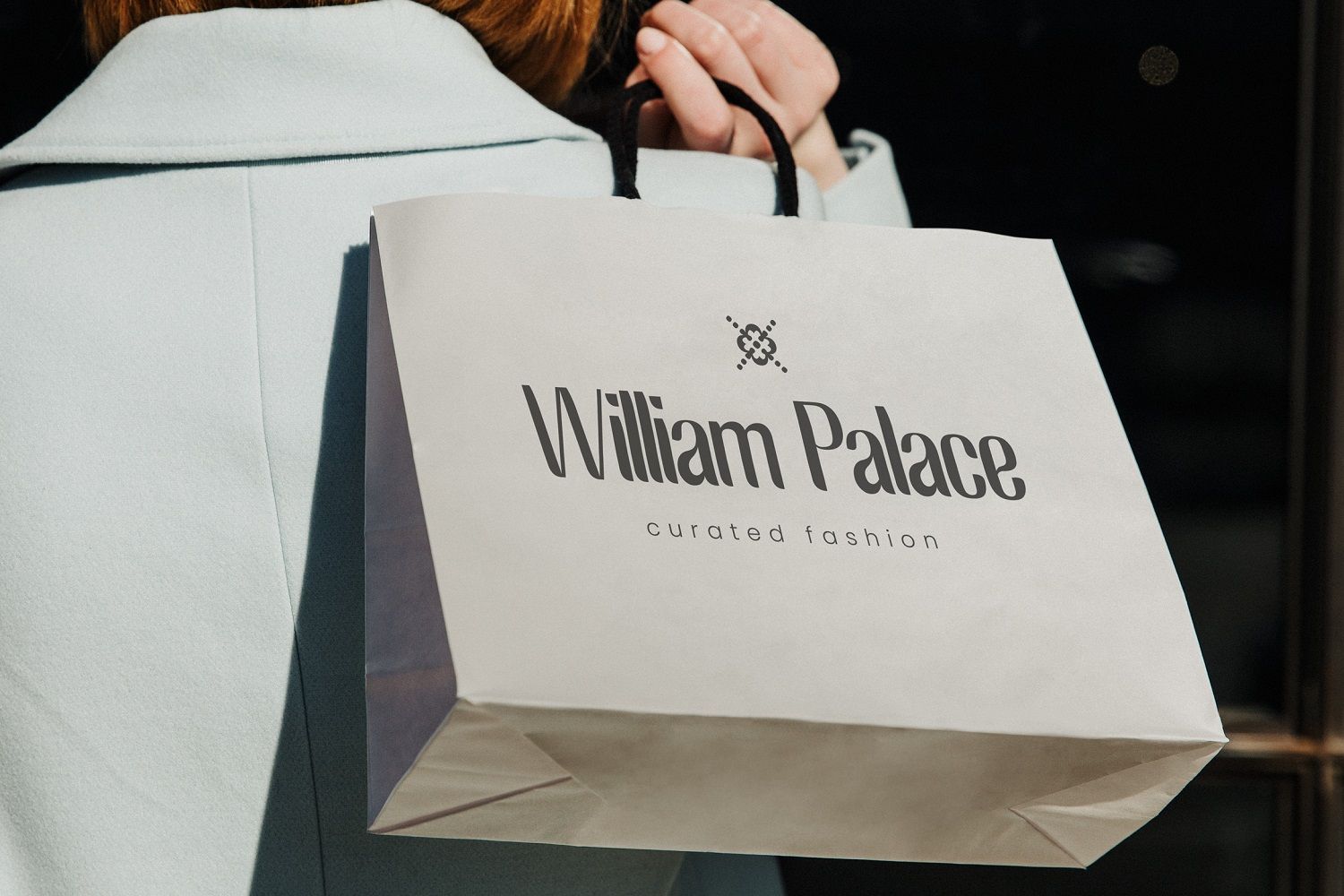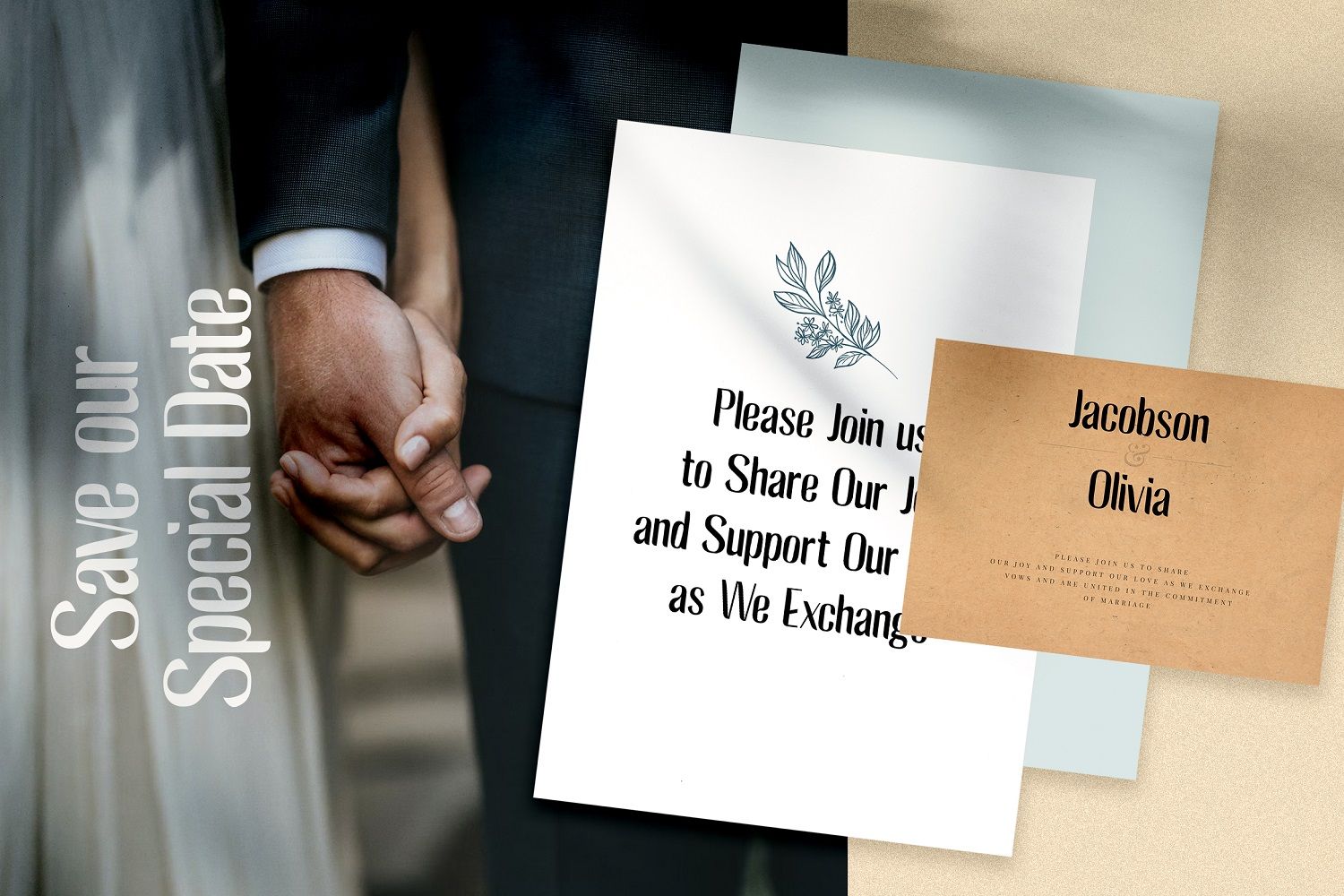
BAGREK DISPLAY Sans Serif Font is a modern display typeface with clean, condensed letterforms and subtle curves that create a distinctive look without becoming hard to read. The shapes feel contemporary and confident, making the font stand out in short text, titles, and branding rather than long paragraphs. Its alternates and ligatures add quiet personality while still keeping a professional tone.
BAGREK DISPLAY Sans Serif Font works well for logos, product packaging, posters, magazine headlines, and website hero sections where a clear visual identity is needed. It is also suitable for fashion, beauty, and creative brand projects that want to look stylish but not overly decorative. With uppercase, lowercase, numerals, punctuation, and multilingual support, BAGREK DISPLAY Sans Serif Font offers enough flexibility for real design use while staying focused on strong, readable display typography.